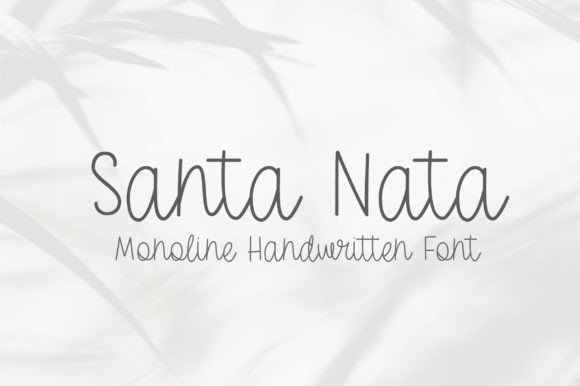
Step into a world of exquisite typography, where letters dance gracefully upon the screen, leaving a trail of elegance and sophistication. Introducing Santa Nata Font, the ultimate script font that will transform your creative visions into masterpieces.
Crafted with meticulous attention to detail by the talented Sunday Nomad, Santa Nata is a modern and clean monoline script font that captures the essence of timeless beauty. Its slender strokes and graceful curves exude a sense of effortless elegance, making it the perfect choice for those seeking a font that speaks volumes without uttering a single word.
Unlock the boundless possibilities of Santa Nata and let your imagination soar. Whether you're a seasoned designer seeking to elevate your projects or a creative enthusiast longing to add a touch of sophistication to your personal creations, Santa Nata is your perfect companion.
Immerse yourself in the world of Instagram and let Santa Nata amplify your presence, captivating your audience with its visually stunning aesthetics. From captivating logos that command attention to enchanting wedding invitations that leave a lasting impression, Santa Nata is the key to unlocking a world of boundless creativity.
Beyond the digital realm, Santa Nata shines as the perfect font for calligraphy scripts, adding a personal touch to your DIY projects. Enrich your handmade cards, scrapbook pages, and home décor with the timeless charm of Santa Nata, transforming ordinary moments into cherished memories.
With Santa Nata as your trusted font companion, you hold the power to transform your creative ideas into tangible works of art. Its versatility knows no bounds, adapting seamlessly to a myriad of projects, each imbued with a touch of sophistication and elegance.
Step into the world of Santa Nata Font and experience the magic of typography at its finest. Let your creativity flourish as you explore the endless possibilities that await you. Embrace the beauty of self-expression and let your designs speak volumes, leaving a lasting impression on all who encounter them.